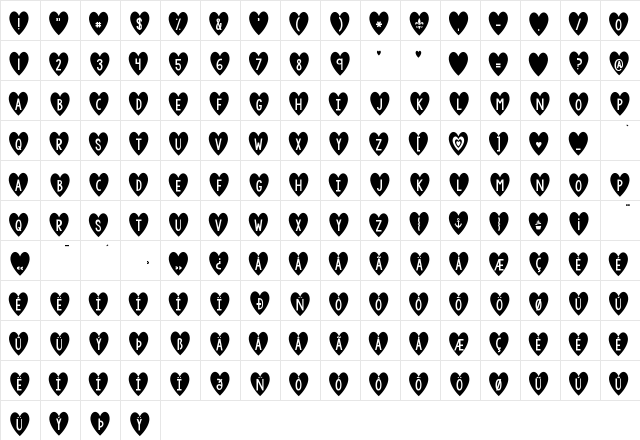
KG I And Love And You Regular
| Foundry | Kimberly Geswein |
| Designer | Kimberly Geswein |
Design Context for KG I And Love And You Typeface
KG I And Love And You is a composed and adaptable typeface that performs quietly and consistently across a wide range of design contexts.